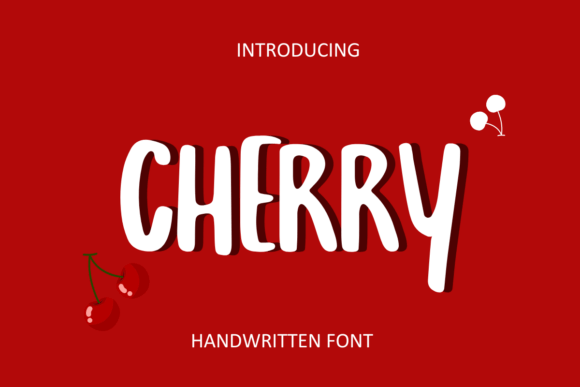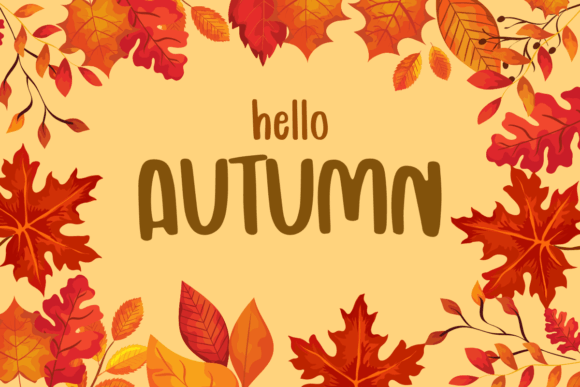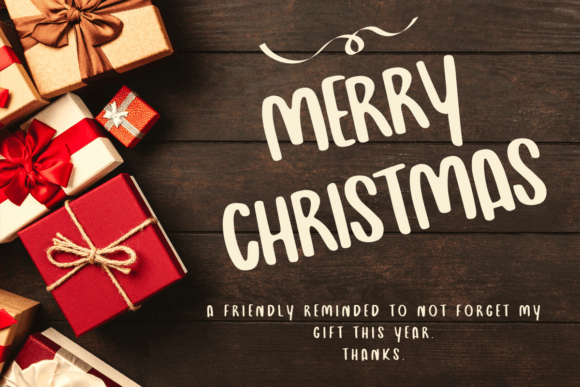
About Cherry Font
**Add a Festive Touch to Your Projects with Cherry Handwritten Font**
Cherry is a fun and quirky handwritten font that’s perfect for infusing a festive and celebratory atmosphere into your projects. Whether you’re creating designs for holidays, parties, events, or anything that calls for a joyful and playful look, Cherry has got you covered. Here’s why Cherry stands out:
**Festive Vibe:** Cherry’s playful and fun style instantly adds a festive and celebratory vibe to your designs. It’s ideal for projects related to holidays, parties, and special occasions.
**Versatile Usage:** This font’s versatility makes it suitable for a wide range of applications, including greeting cards, invitations, posters, banners, social media, flyers, and more.
**Greeting Cards:** Create cheerful and memorable greeting cards for birthdays, holidays, and special events. Cherry’s whimsical look sets the tone for joyous occasions.
**Invitations:** Craft lively and inviting invitations for parties, weddings, and gatherings. Cherry’s playful charm adds excitement to your invitation designs.
**Posters and Banners:** Design eye-catching posters and banners that demand attention and convey the spirit of celebration. Cherry’s fun style ensures your message gets noticed.
**Social Media:** Elevate your social media posts with Cherry’s festive flair. Use it for captions, announcements, and promotional content to engage your audience.
**Flyers:** Design vibrant and attention-grabbing flyers for events, promotions, and sales. Cherry’s lively appearance makes your flyers stand out.
**Holiday Designs:** Whether it’s Christmas, Halloween, Valentine’s Day, or any holiday celebration, Cherry adds a festive touch to your holiday-themed projects.
**Playful Logos:** Create playful and memorable logos for businesses, events, or brands that want to convey a sense of fun and celebration.
**Joyful Quotes:** Transform quotes and messages into visually appealing statements of joy and happiness. Cherry’s playful style complements inspirational and cheerful content.
**Easy Customization:** Customize your designs further by accessing special characters and glyphs within the font. This flexibility allows for creative and unique typographic treatments.
**Consistent Look:** Cherry’s style ensures a consistent and playful look across various design elements, maintaining the festive theme throughout your projects.
**Memorable Impact:** With its joyful and quirky appearance, Cherry leaves a lasting and memorable impression on viewers and readers, making your designs stand out.
**Handcrafted Charm:** The font’s handcrafted quality adds an authentic and charming touch to your festive designs.
**Happy Connection:** Cherry creates an emotional connection with viewers, conveying a sense of happiness and excitement.
**Special Occasions:** Whether it’s a birthday party, wedding, or any special occasion, Cherry adds a cheerful and festive element to your designs.
Cherry is more than just a font; it’s a tool for adding joy, playfulness, and celebration to your projects. Its fun and quirky style make it the perfect choice for creating designs that spread happiness and make people smile. So, if you’re looking to add a festive touch to your designs, Cherry is your go-to font for a jolly and memorable impact.